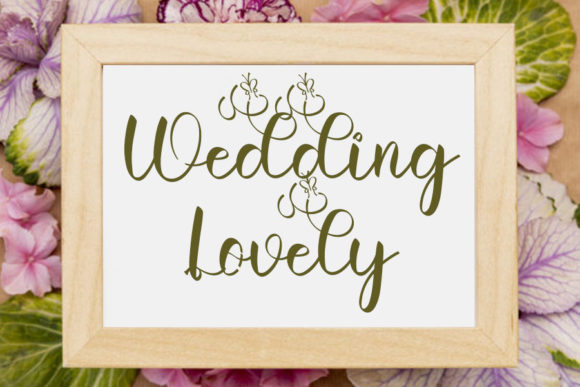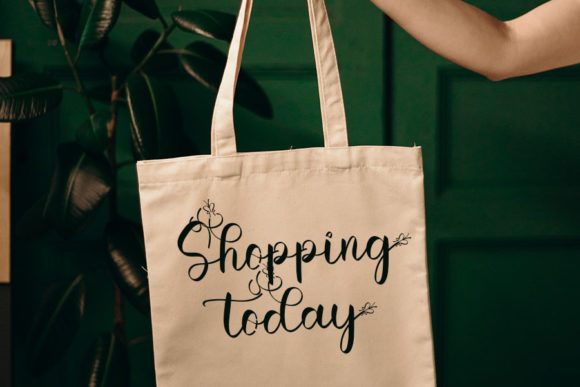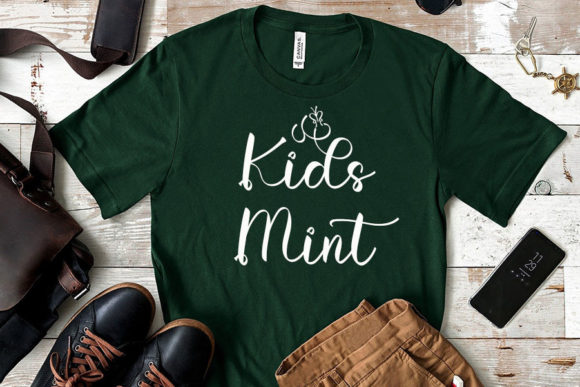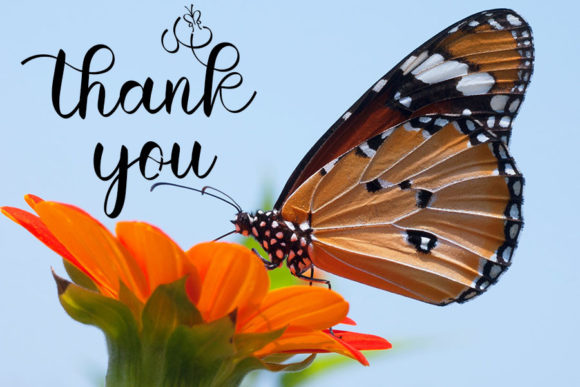
The Sweet Freedom of Butterfly Font: A Designer’s Delight
I’ll never forget the time I was working on a luxury branding project for a high-end jewelry client. I had spent hours perfecting the logo design, but something was missing. The font I had chosen just wasn’t giving off the right vibe – it was too rigid, too formal. I needed something that would add a touch of elegance and whimsy to the design. That’s when I stumbled upon Butterfly Font, and it completely transformed the project.
A Whimsical Wonder: First Impressions of Butterfly Font
Butterfly Font is a sweet, whimsical, and flowing script font that features characters that dance along the baseline. It’s the perfect addition to any design project that requires a touch of luxury and sophistication. With its elegant and flowing lines, this font is sure to make your designs stand out.
So, what do I love about Butterfly Font? Here are a few things that make it a standout:
- ✨ Elegant and flowing lines that add a touch of luxury to any design
- 💫 Beautifully crafted characters that dance along the baseline, adding a touch of whimsy to your designs
- 🎨 Versatile and can be used for a wide range of design projects, from branding and packaging to wedding invitations and more
- 🤔 Some characters may require manual kerning to achieve optimal spacing
- ⚠️ May not be suitable for very long blocks of text, as it can be a bit too ornate for easy reading
Butterfly Font was designed by a team of creatives who wanted to create a font that would capture the essence of luxury and sophistication. Inspired by the delicate beauty of butterflies, they crafted a font that would add a touch of whimsy and elegance to any design project.
| What is Butterfly Font? | Butterfly Font is a sweet, whimsical and flowing script font featuring characters that dance along the baseline. |
| Is Butterfly Font suitable for body text? | No, Butterfly Font is best used for headings, titles, and short blocks of text. It’s not recommended for long blocks of body text. |